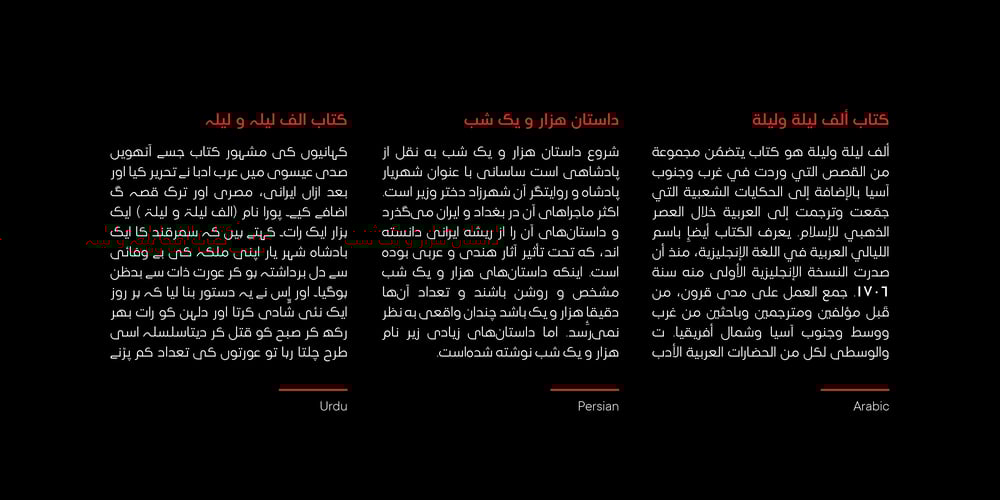
HT Qays Sans Font Family was designed by Muhammed Hadi and published by HadiTypeStudio. HT Qays Sans contains 5 styles and family package options. HT Qays Sans New Arabic Font performs equally well in print and on-screen and the designs can be used at very small sizes in packaging and catalogs, while massive print headlines – even complicated way-finding projects pose no stumbling blocks to the family’s typographic dexterity.